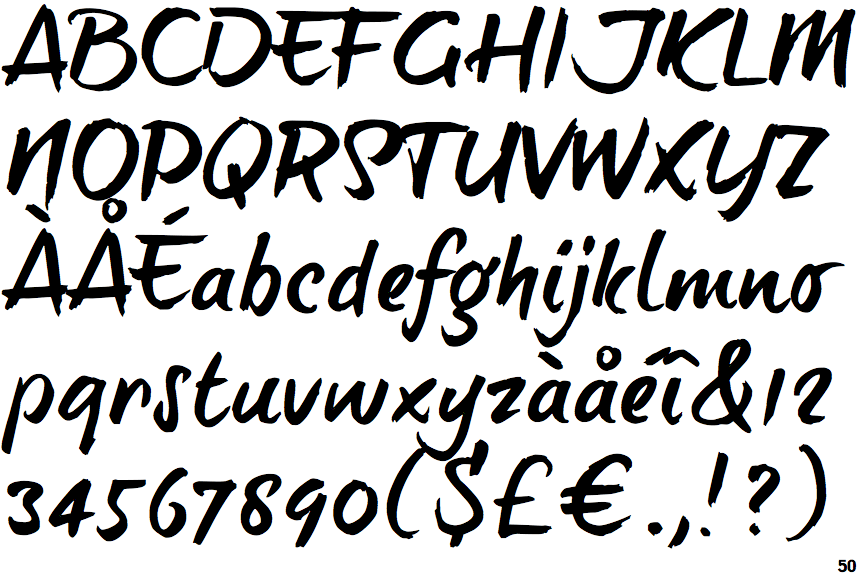
Brush Tip Terrence Font . Free brush tip terrence font in ttf, woff2 or otf format. Download and install the brush tip terrence font by joebob graphics. Download—the font meta search engine with more than 50,000 font styles to find and order. Brush tip terrence fonts for websites and design projects. The complete and embeddable version of the font is available on. Brushtip terrence by jjw van der ham: Excellent for people that want to put their statement on the wall, but. This is an incomplete trial version. Slightly slanted brush tip handwriting script that looks both elegant and streetwise, very suitable for all your poetry, lyrics and memoires. The brush tip terrence font has been downloaded 34,704 times.
Download—the font meta search engine with more than 50,000 font styles to find and order. Excellent for people that want to put their statement on the wall, but. Brushtip terrence by jjw van der ham: This is an incomplete trial version. The complete and embeddable version of the font is available on. Brush tip terrence fonts for websites and design projects. The brush tip terrence font has been downloaded 34,704 times. Slightly slanted brush tip handwriting script that looks both elegant and streetwise, very suitable for all your poetry, lyrics and memoires. Free brush tip terrence font in ttf, woff2 or otf format. Download and install the brush tip terrence font by joebob graphics.
Brush Tip Terrence Font Download—the font meta search engine with more than 50,000 font styles to find and order. Slightly slanted brush tip handwriting script that looks both elegant and streetwise, very suitable for all your poetry, lyrics and memoires. The complete and embeddable version of the font is available on. Download and install the brush tip terrence font by joebob graphics. The brush tip terrence font has been downloaded 34,704 times. Excellent for people that want to put their statement on the wall, but. Download—the font meta search engine with more than 50,000 font styles to find and order. Brushtip terrence by jjw van der ham: This is an incomplete trial version. Free brush tip terrence font in ttf, woff2 or otf format. Brush tip terrence fonts for websites and design projects.
Brush Tip Terrence Font in truetype .ttf opentype .otf format free and Brush Tip Terrence Font Slightly slanted brush tip handwriting script that looks both elegant and streetwise, very suitable for all your poetry, lyrics and memoires. The brush tip terrence font has been downloaded 34,704 times. This is an incomplete trial version. Excellent for people that want to put their statement on the wall, but. Download and install the brush tip terrence font by joebob. Brush Tip Terrence Font.
Chinese brush font free download Brush Tip Terrence Font The complete and embeddable version of the font is available on. Excellent for people that want to put their statement on the wall, but. Download and install the brush tip terrence font by joebob graphics. Brush tip terrence fonts for websites and design projects. Brushtip terrence by jjw van der ham: Free brush tip terrence font in ttf, woff2 or. Brush Tip Terrence Font.
Stricken Brush Font FREE Download & Similar Fonts FontGet Brush Tip Terrence Font The complete and embeddable version of the font is available on. The brush tip terrence font has been downloaded 34,704 times. Download—the font meta search engine with more than 50,000 font styles to find and order. Download and install the brush tip terrence font by joebob graphics. Excellent for people that want to put their statement on the wall, but.. Brush Tip Terrence Font.
brushtipTerrence Font · 1001 Fonts Brush Tip Terrence Font This is an incomplete trial version. Brushtip terrence by jjw van der ham: Excellent for people that want to put their statement on the wall, but. Download—the font meta search engine with more than 50,000 font styles to find and order. Download and install the brush tip terrence font by joebob graphics. The brush tip terrence font has been downloaded. Brush Tip Terrence Font.
Brush Tip Terrence Font UpFonts Brush Tip Terrence Font Brushtip terrence by jjw van der ham: Free brush tip terrence font in ttf, woff2 or otf format. Download and install the brush tip terrence font by joebob graphics. Slightly slanted brush tip handwriting script that looks both elegant and streetwise, very suitable for all your poetry, lyrics and memoires. The brush tip terrence font has been downloaded 34,704 times.. Brush Tip Terrence Font.